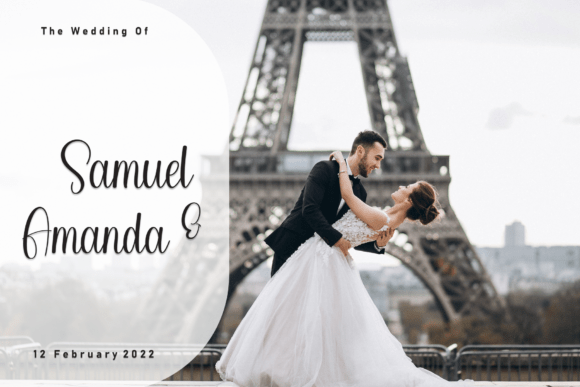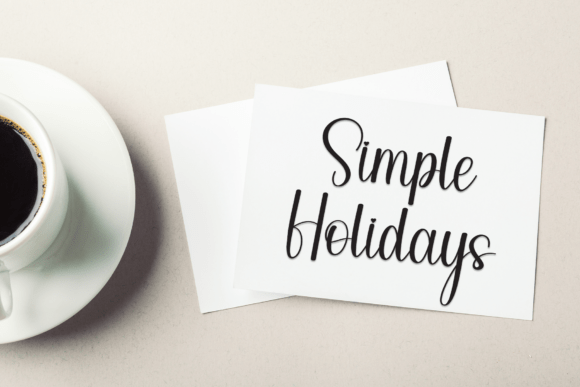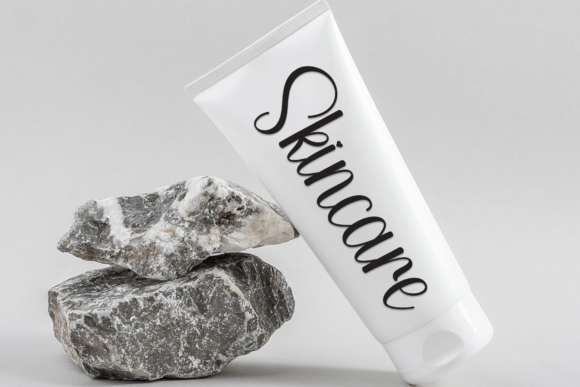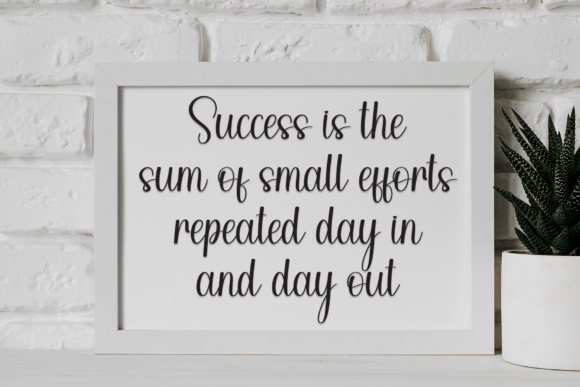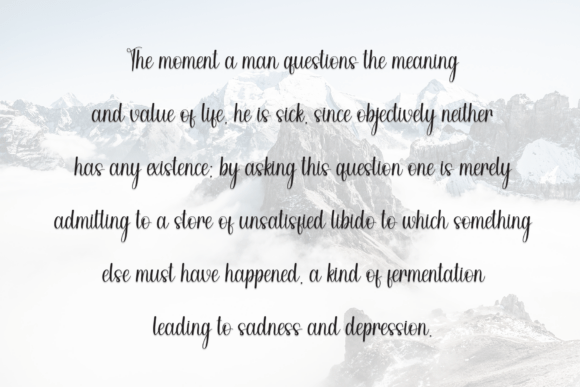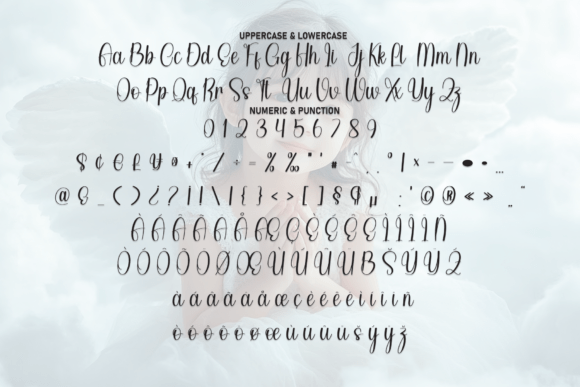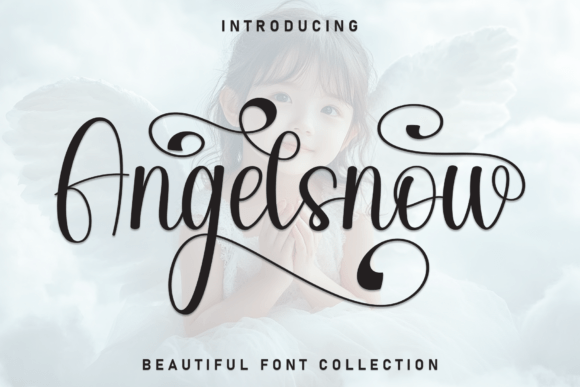
Discover the Delightful Angelsnow Font: Add a Touch of Whimsy to Your Designs
Are you looking for a font that can add a dash of sweetness and friendly appeal to your designs? Look no further than the Angelsnow Font, a delightful handwritten display font that is sure to bring a sense of fun and playfulness to your creations. In this article, we’ll take a closer look at the Angelsnow Font, its features, and how you can use it to elevate your designs.
What is Angelsnow Font?
Angelsnow Font is a beautiful, handwritten display font that is designed to exude sweetness and friendly appeal. Its playful and fun design makes it perfect for a variety of design projects, from wedding invitations and greeting cards to social media graphics and more. With its whimsical and vivacious touch, this font is sure to bring a sense of joy and excitement to your designs.
Key Features of Angelsnow Font
So, what makes Angelsnow Font so special? Here are some of its key features:
- Handwritten Design: Angelsnow Font is a handwritten display font, which gives it a personal and unique touch.
- Playful and Fun: The font’s playful and fun design makes it perfect for designs that require a sense of joy and excitement.
- Sweet and Friendly Appeal: The font’s sweet and friendly appeal makes it perfect for designs that require a touch of warmth and personality.
- Whimsical and Vivacious: The font’s whimsical and vivacious touch makes it perfect for designs that require a sense of creativity and imagination.
Use Cases for Angelsnow Font
Angelsnow Font is a versatile font that can be used for a variety of design projects. Here are some use cases where this font can shine:
- Wedding Invitations: The font’s sweet and friendly appeal makes it perfect for wedding invitations, adding a touch of romance and whimsy to your designs.
- Greeting Cards: The font’s playful and fun design makes it perfect for greeting cards, adding a sense of joy and excitement to your designs.
- Social Media Graphics: The font’s whimsical and vivacious touch makes it perfect for social media graphics, adding a touch of creativity and imagination to your designs.
- Branding and Packaging: The font’s unique and playful design makes it perfect for branding and packaging designs, adding a touch of personality and whimsy to your designs.
Tips for Using Angelsnow Font
Here are some tips for using Angelsnow Font in your designs:
- Use it as a Display Font: Angelsnow Font is designed to be used as a display font, so use it to add a touch of personality and whimsy to your designs.
- Experiment with Colors: The font’s playful and fun design makes it perfect for experimenting with different colors and color combinations.
- Pair it with Other Fonts: Angelsnow Font can be paired with other fonts to create a unique and interesting design.
In conclusion, Angelsnow Font is a delightful handwritten display font that is sure to bring a sense of fun and playfulness to your designs. With its sweet and friendly appeal, whimsical and vivacious touch, and playful and fun design, this font is perfect for a variety of design projects. Whether you’re designing wedding invitations, greeting cards, or social media graphics, Angelsnow Font is sure to add a touch of creativity and imagination to your designs.